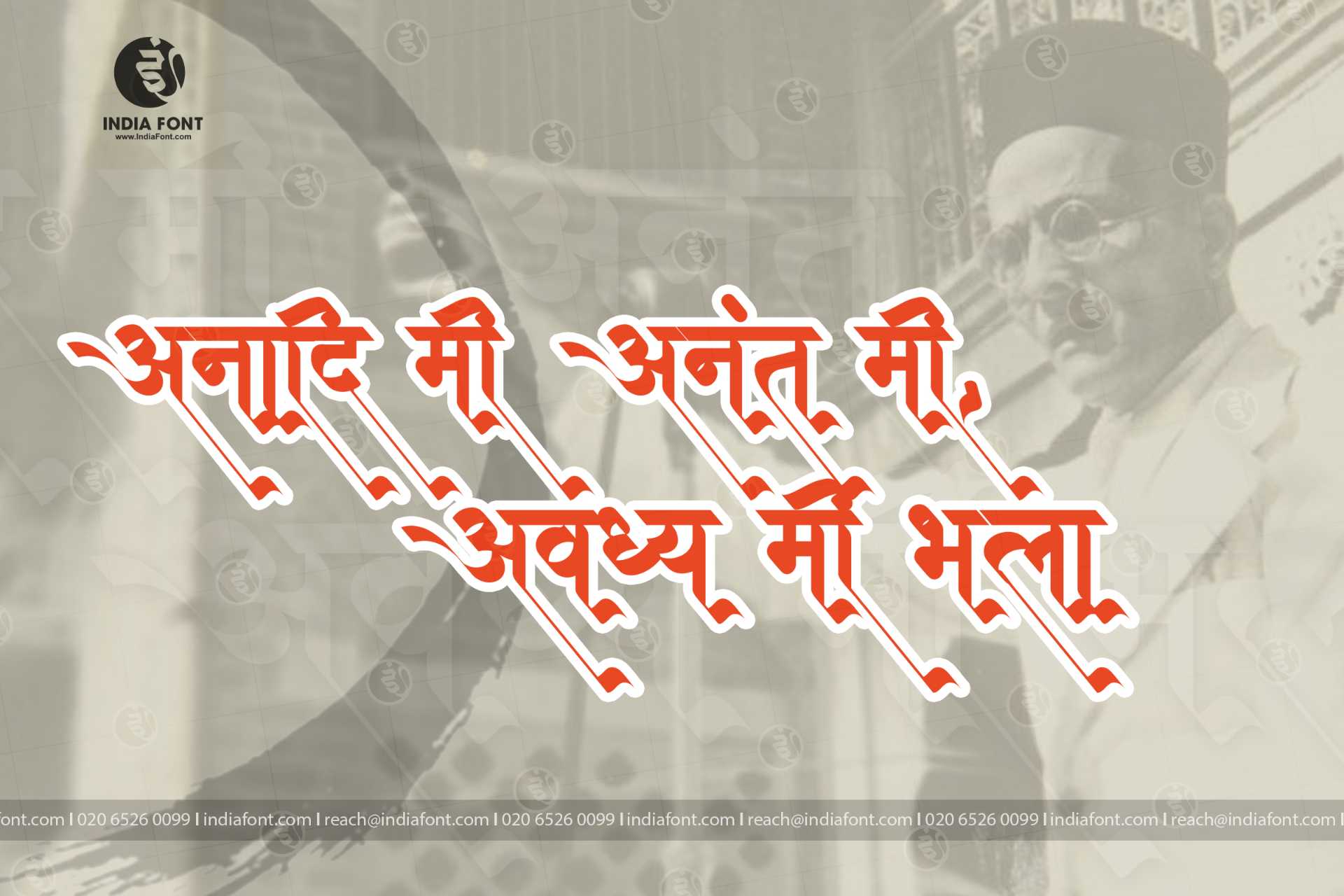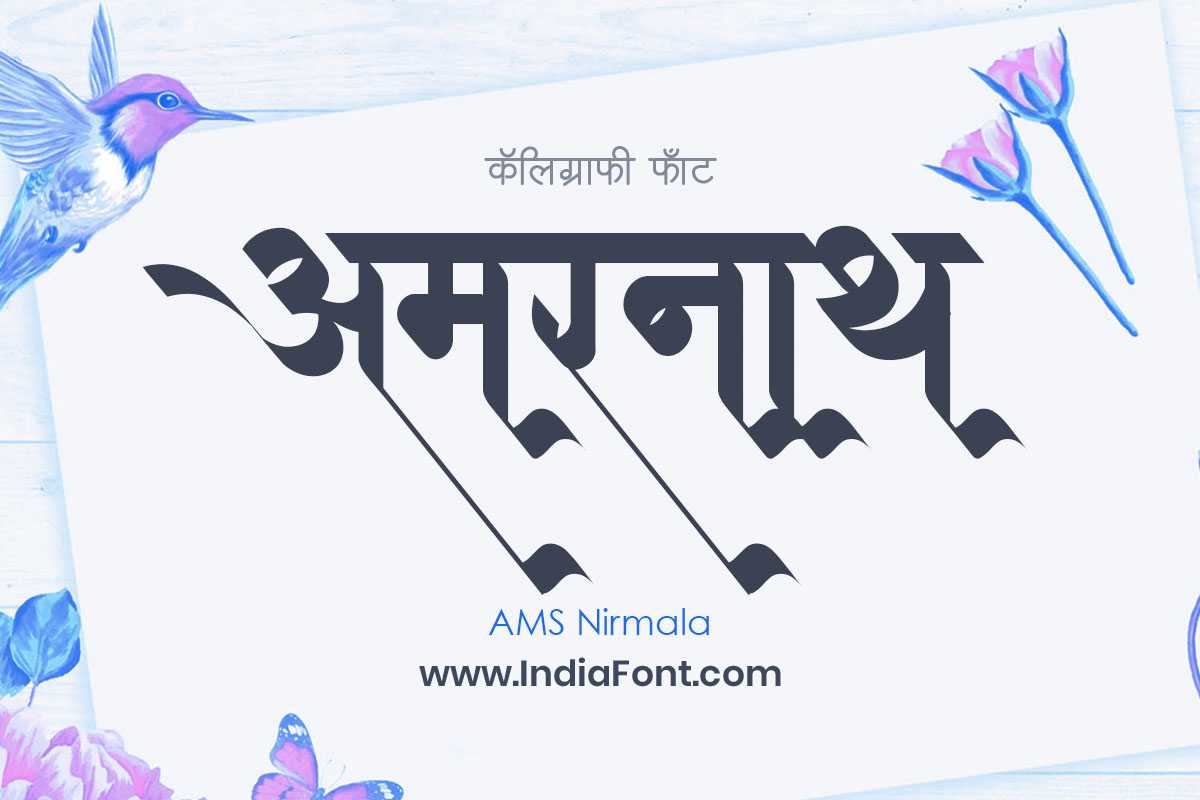
AMS Nirmala
Experience the timeless beauty of AMS Nirmala, a calligraphy font that captures the essence of elegance and refinement. This font is perfect for designers looking for stylish Hindi fonts, calligraphy fonts that exude sophistication, or fonts that offer free font download options.
AMS Nirmala Design Inspiration
Explore how AMS Nirmala looks in real-world applications and get inspired for your next project
AMS Nirmala font design inspiration and usage example
AMS Nirmala typography showcase and design sample
About AMS Nirmala Font
Experience the timeless beauty of AMS Nirmala, a calligraphy font that captures the essence of elegance and refinement. This font is perfect for designers looking for stylish Hindi fonts, calligraphy fonts that exude sophistication, or fonts that offer free font download options. This calligraphy font combines elegance with functionality, making it perfect for various design applications.
AMS Nirmala is a professionally crafted calligraphy typeface that brings clarity and style to your projects. Designed with attention to detail, it supports hindi and marathi characters flawlessly.
Whether you're working on wedding-materials, invitations, logos, or other creative projects, AMS Nirmala delivers consistent performance across both digital and print media. This carefully designed typeface ensures readability and visual appeal in all your design work.
Why Choose AMS Nirmala?
AMS Nirmala excels in various design scenarios. Here are the most suitable applications:
About AMS Nirmala Typography Style
AMS Nirmala is a professionally crafted calligraphy font that exemplifies modern Hindi typography design. This free font is perfect for designers seeking professional branding and logo design projects.
Available in 1 weight and supporting hindi, marathi scripts, AMS Nirmala offers exceptional versatility for both digital and print media. Whether you're working on wedding-materials, invitations, logos, this carefully designed typeface ensures consistent quality and professional results across all your typography projects.